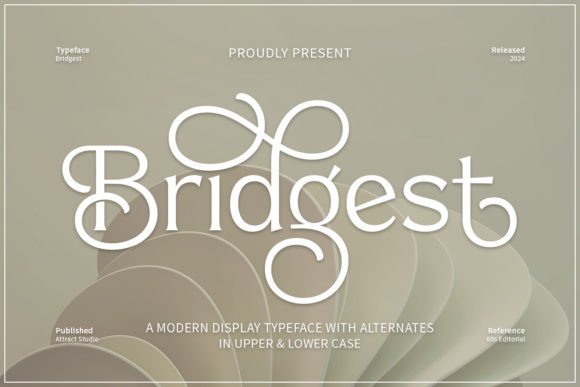
Bridgest Font: A Timeless Serif Font for Modern Design
In the world of typography, fonts play a crucial role in conveying the tone and personality of a design project. With the numerous font options available, finding the perfect one that combines classic elegance with modern flair can be a daunting task. However, if you’re looking for a versatile serif font that embodies both old-world charm and contemporary style, look no further than Bridgest Font.
The Story Behind Bridgest Font
Bridgest Font is an old and modern-style serif font created with a desire for quality fonts. The font’s design is rooted in traditional serif typography, yet it boasts modern features that make it suitable for a wide range of design applications. The creator of Bridgest Font aimed to craft a font that would offer a unique blend of classic and contemporary elements, making it an excellent choice for designers seeking a distinctive look.
A Font with Endless Possibilities
One of the standout features of Bridgest Font is its incredible versatility. The font comes with an enormous number of alternatives, ranging from simple styling options to swashes, fasteners, and substitutes. This extensive range of variations allows designers to experiment with different looks and styles, making it easy to find the perfect fit for their project. Whether you’re working on blog graphics, stylish quotes, wedding stationery, art prints, or any other design project, Bridgest Font is an excellent choice.
Classic Shape, Modern Features
Bridgest Font boasts a classic serif shape that exudes elegance and sophistication. The font’s traditional design elements, such as its serifs and letterforms, are reminiscent of classic typography. However, it also features modern elements that give it a fresh and contemporary feel. This blend of old and new makes Bridgest Font an excellent choice for designers who want to create a design that is both timeless and modern.
PUA Encoding for Easy Access
Bridgest Font is PUA (Private Use Area) encoded, which means that accessing its amazing glyphs and ligatures is incredibly easy. PUA encoding allows designers to access the font’s extended character set, including swashes, alternates, and other special characters, without the need for complex software or technical expertise. This feature makes it simple for designers to add a touch of elegance and sophistication to their designs.
Design Applications for Bridgest Font
Bridgest Font is an incredibly versatile font that can be used for a wide range of design projects. Here are some examples of design applications where Bridgest Font excels:
- Blog Graphics: Add a touch of elegance to your blog graphics with Bridgest Font. Its classic shape and modern features make it perfect for blog headers, titles, and other graphical elements.
- Stylish Quotes: Create stunning quote graphics with Bridgest Font. The font’s elegant design and extensive range of alternatives make it ideal for creating visually appealing quotes.
- Wedding Stationery: Make your wedding stationery stand out with Bridgest Font. The font’s classic elegance and modern flair make it perfect for wedding invitations, programs, and other stationery.
- Art Prints: Add a touch of sophistication to your art prints with Bridgest Font. The font’s versatile design makes it suitable for a wide range of art print styles, from minimalist to elaborate.
Why Choose Bridgest Font?
With so many fonts available, why choose Bridgest Font? Here are just a few reasons why Bridgest Font stands out from the crowd:
- Unique Blend of Classic and Modern: Bridgest Font offers a unique blend of classic serif typography and modern features, making it perfect for designers seeking a distinctive look.
- Endless Possibilities: The font’s extensive range of alternatives, swashes, and substitutes gives designers endless possibilities for creative expression.
- PUA Encoding: Bridgest Font’s PUA encoding makes it easy to access its extended character set, including glyphs and ligatures.
- Versatility: Bridgest Font is suitable for a wide range of design applications, from blog graphics to wedding stationery.
In conclusion, Bridgest Font is an exceptional serif font that offers a unique blend of classic elegance and modern flair. Its versatility, extensive range of alternatives, and PUA encoding make it an excellent choice for designers seeking a high-quality font for their design projects. Whether you’re working on blog graphics, stylish quotes, wedding stationery, art prints, or any other design project, Bridgest Font is sure to impress.